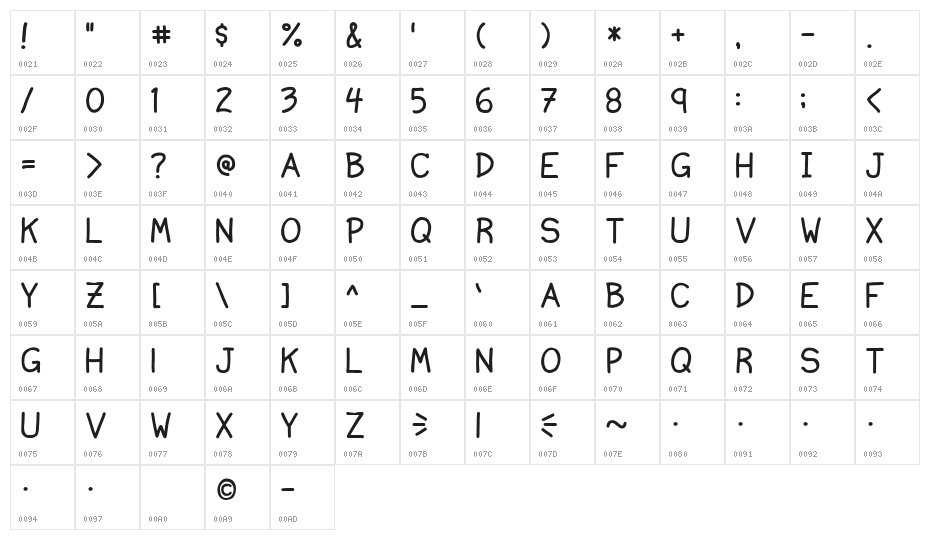
Ninjascript Font
Ninjascript Description
This font features a playful and casual handwritten style, characterized by its rounded edges and slightly uneven strokes. The letters are bold and have a consistent thickness, giving them a friendly and approachable appearance. The uppercase and lowercase letters maintain a uniform height, contributing to a cohesive look. Numbers and special characters are designed with the same playful aesthetic, making them easily readable and visually appealing. The overall design is simple yet effective, suitable for projects that require a personal touch.
| Proposed Projects | Ideal for children's books, casual invitations, greeting cards, and playful branding materials. |